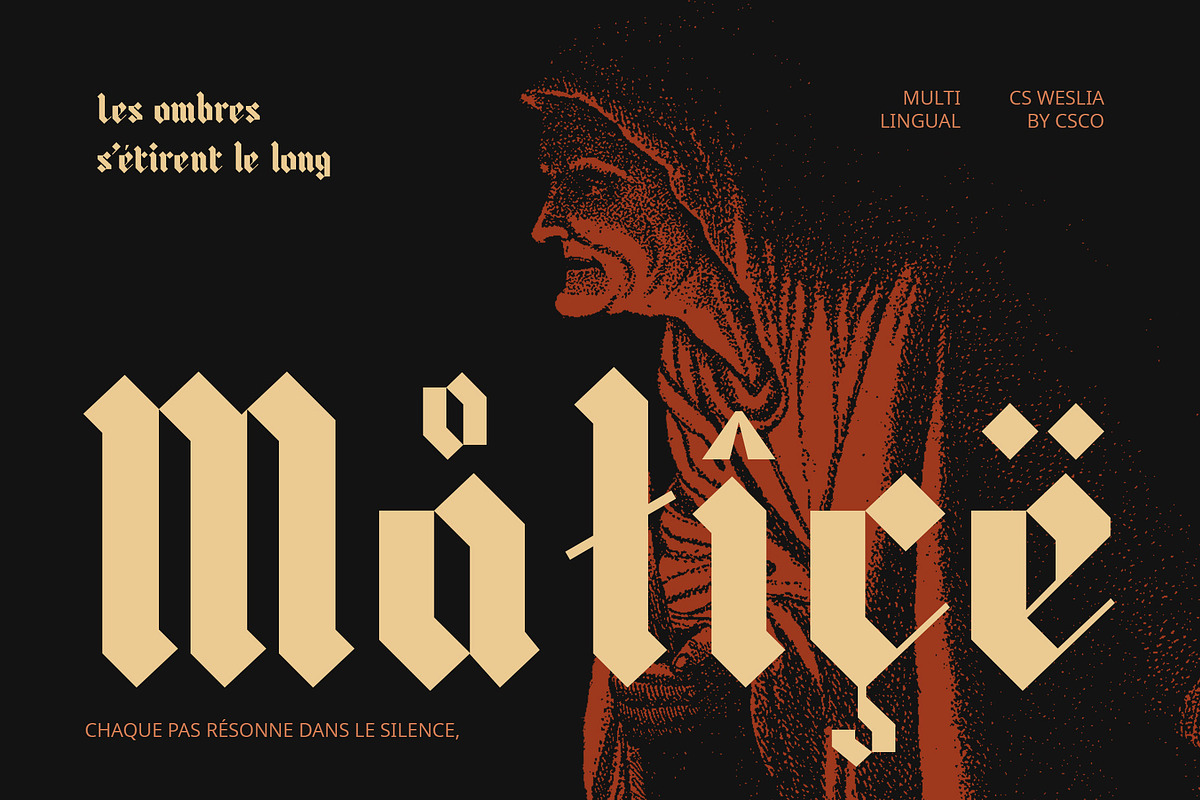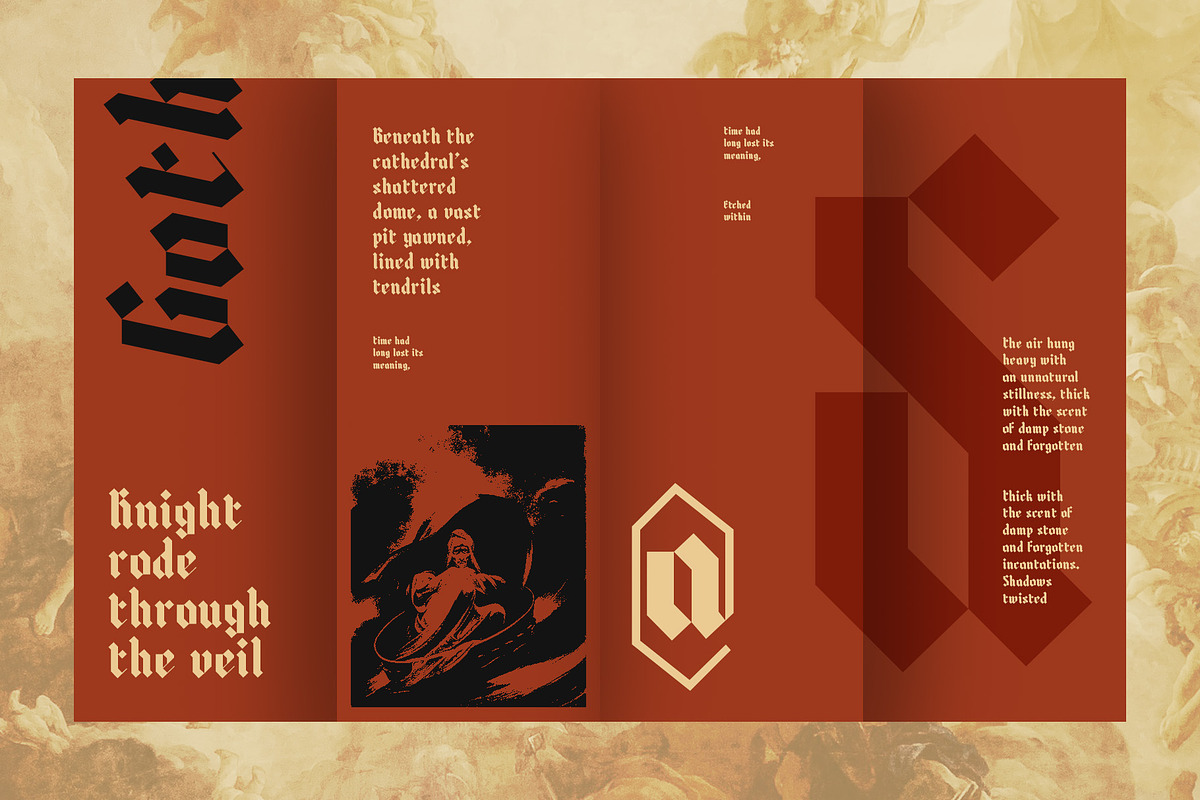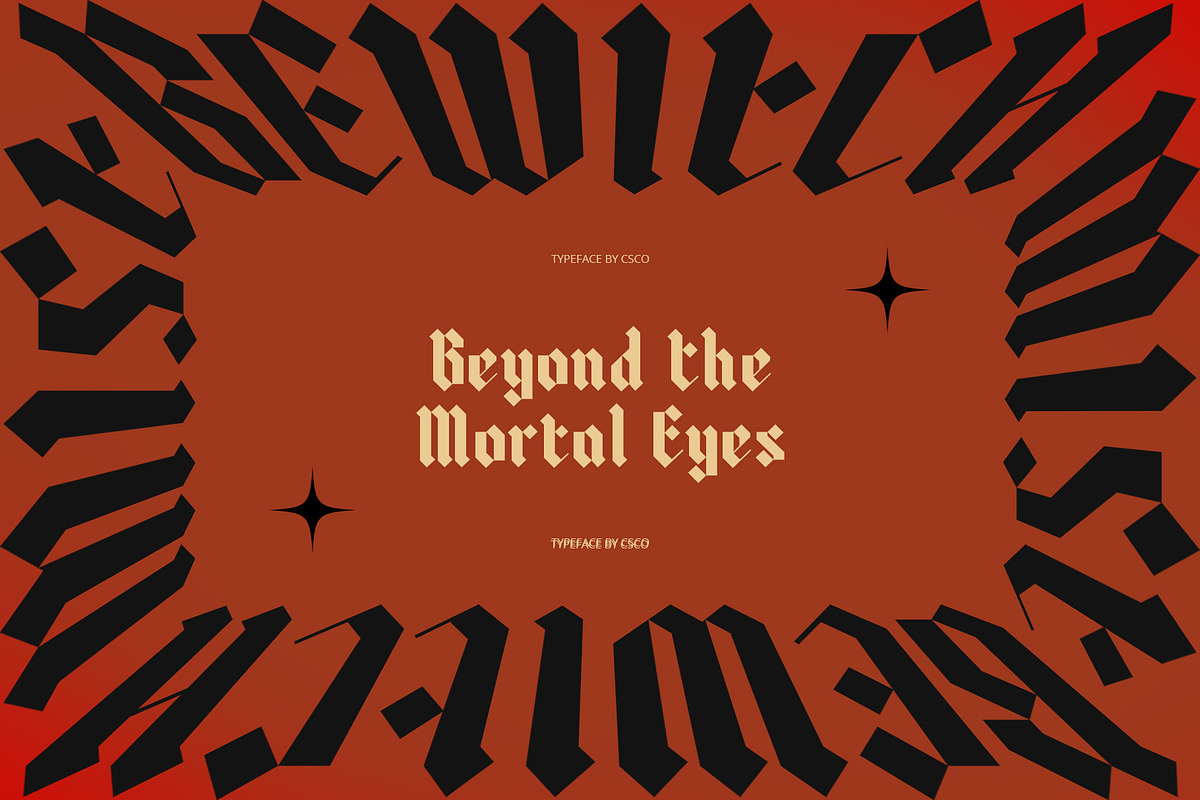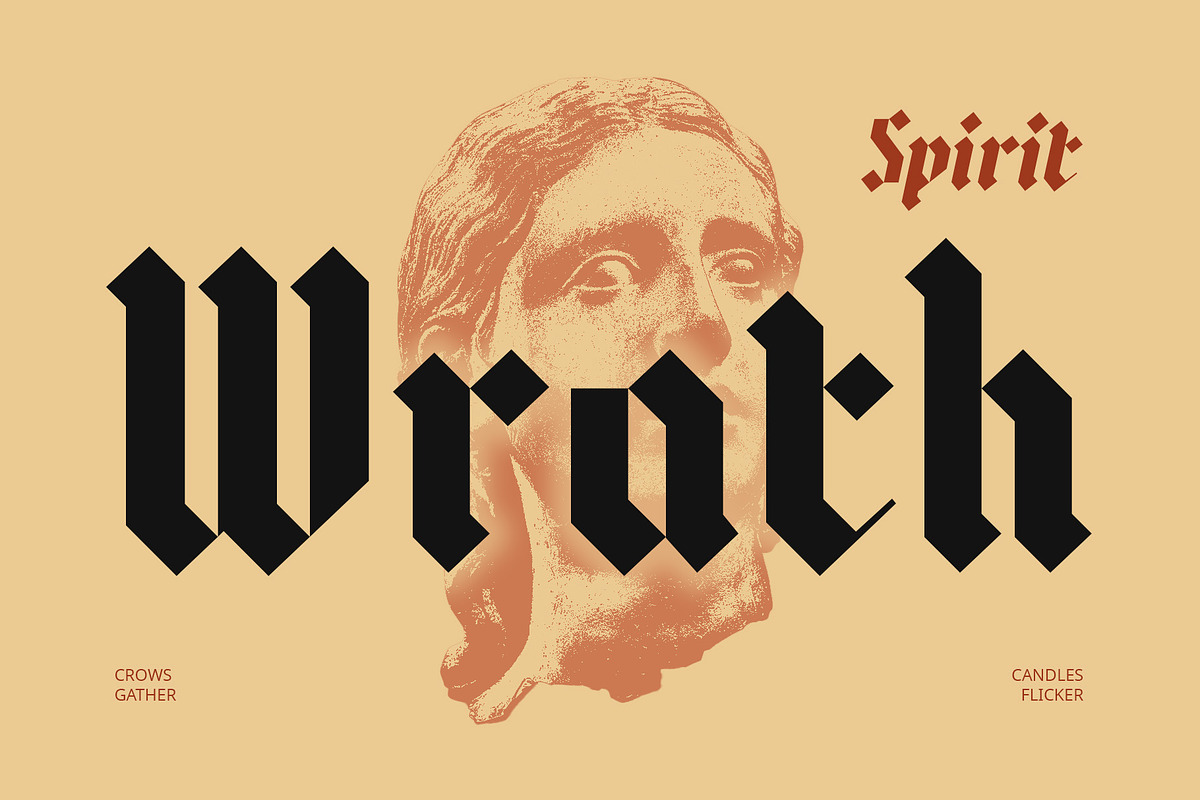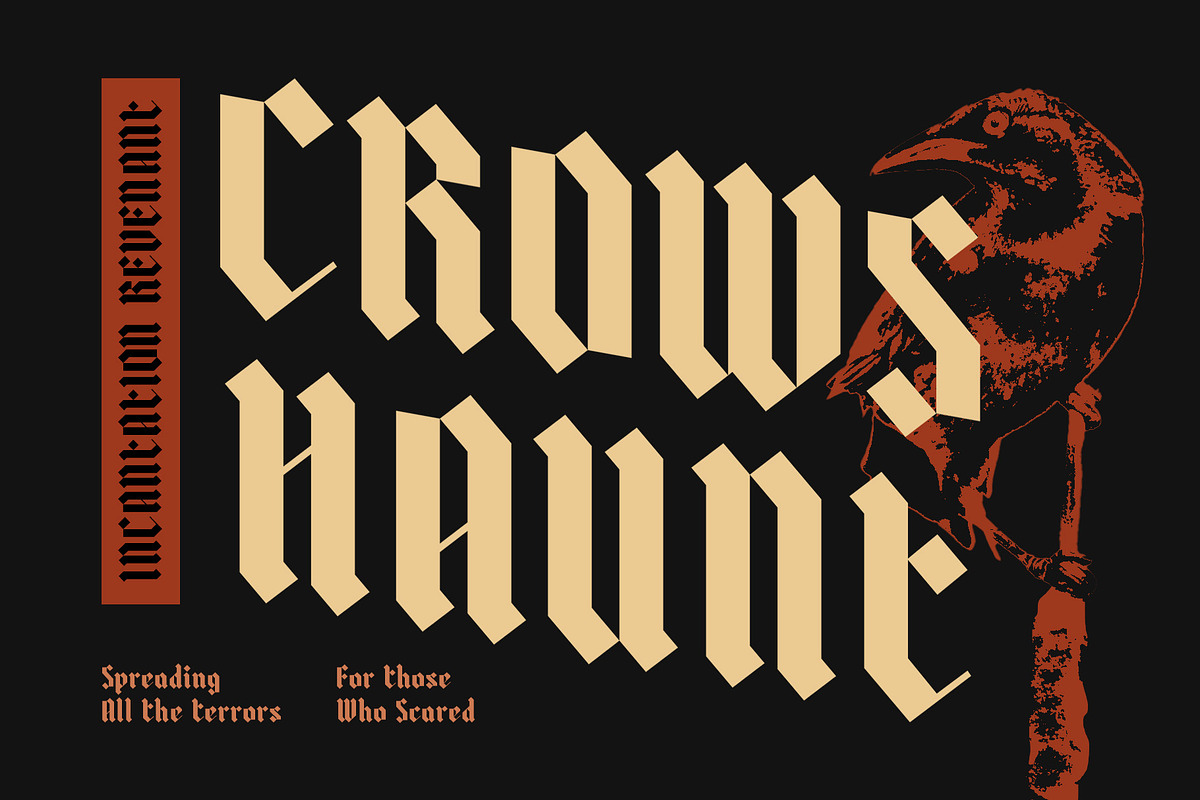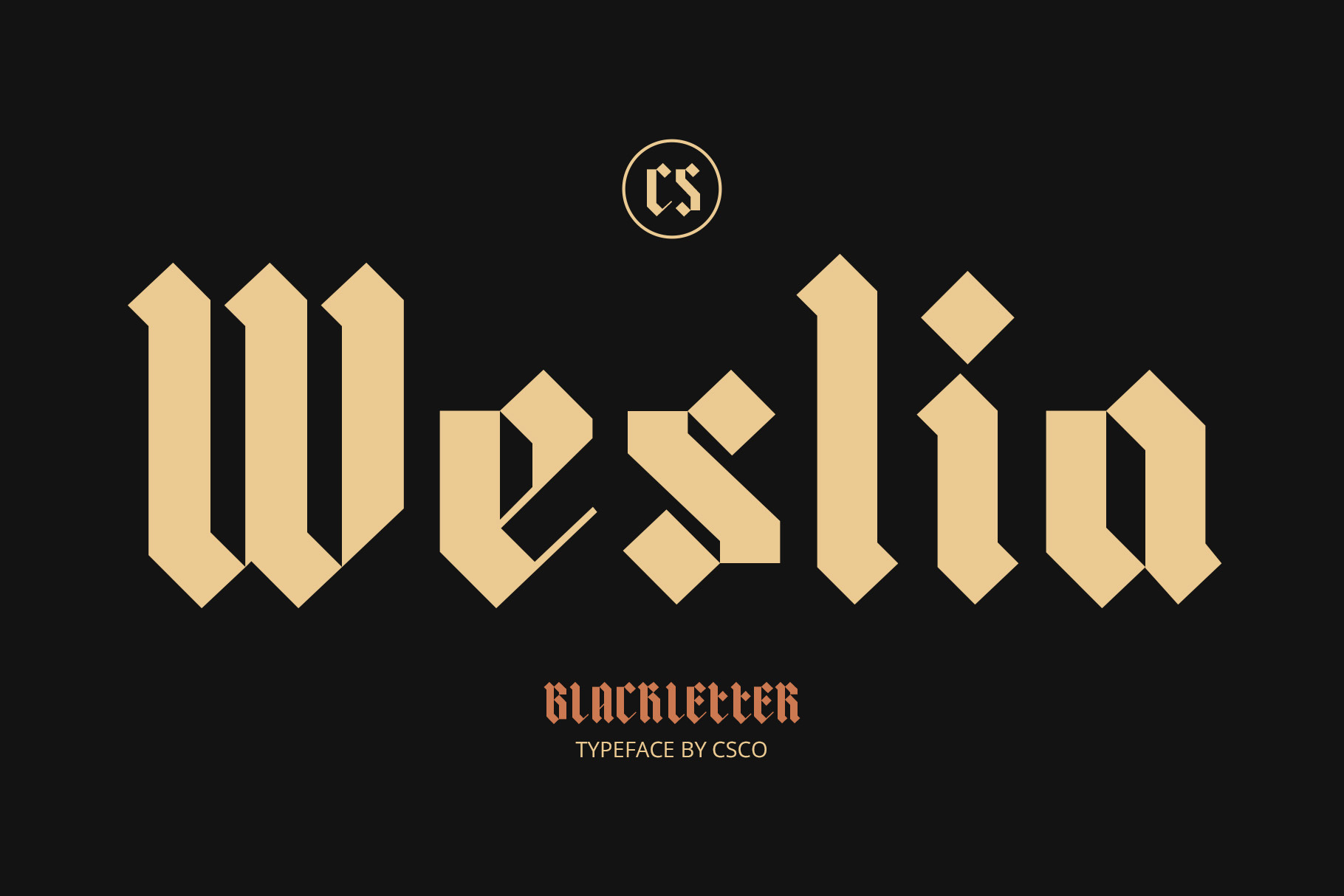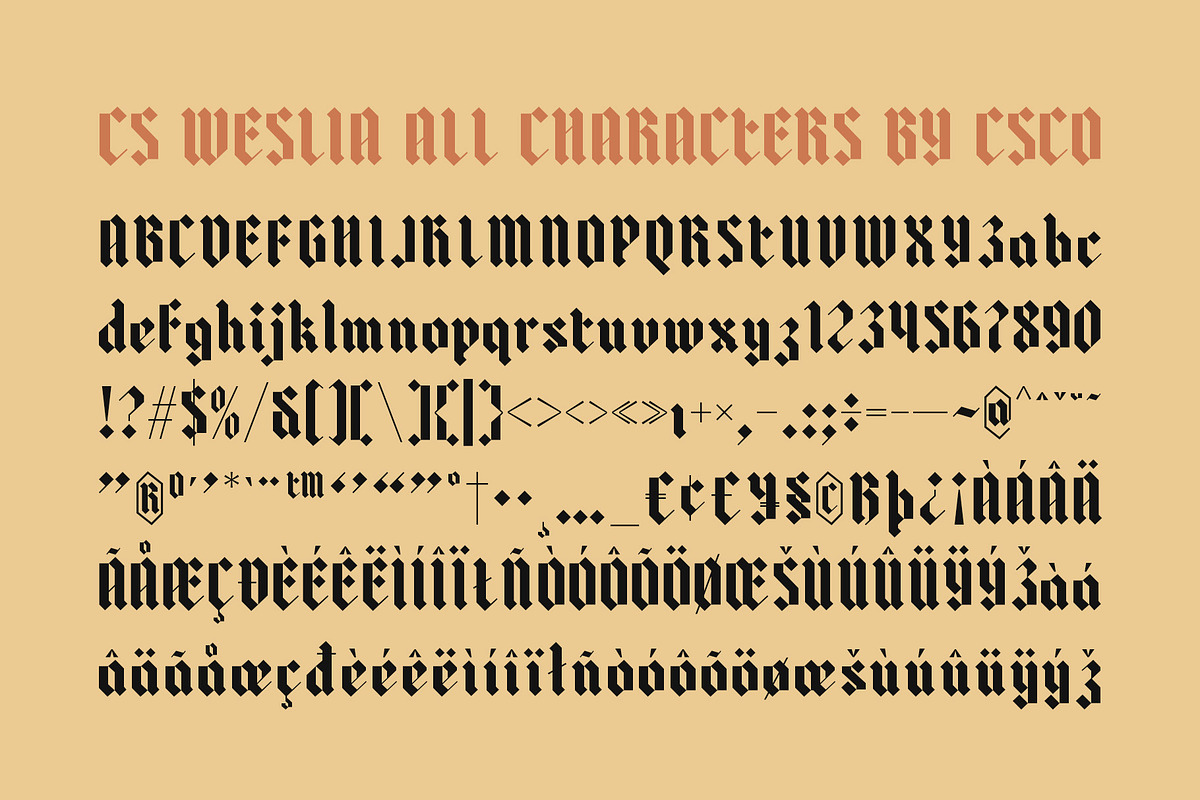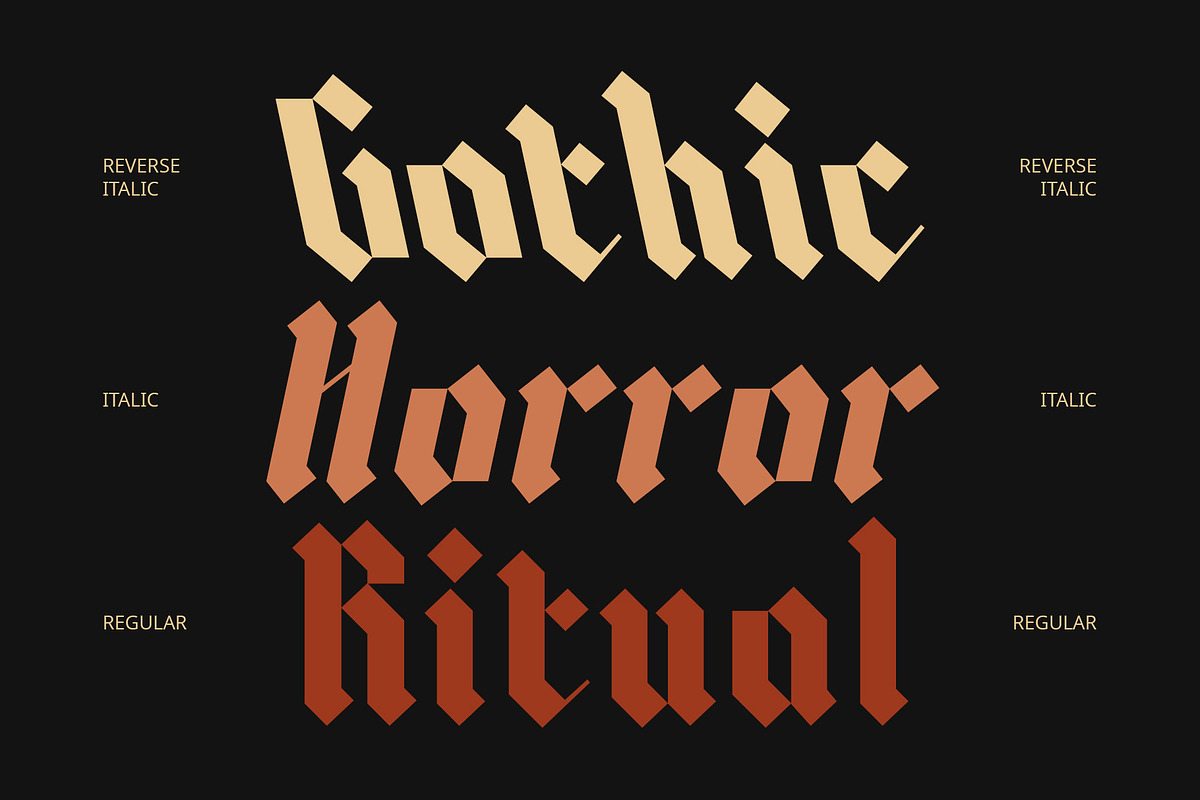
CS Weslia – Gothic Font
CS Weslia – Gothic Font: Modern Gothic Elegance Meets Timeless Drama
Gothic Display Font with Contemporary Elements CS Weslia is a striking display font that masterfully blends the bold, sharp characteristics of traditional gothic styles with sleek, modern touches. Featuring tall letterforms with dramatic flourishes, this font retains the heritage of gothic typography while introducing clean proportions and minimalist structures for a fresh, contemporary look.
Sophisticated and Mysterious Character With its intricate and imposing design, CS Weslia creates a captivating atmosphere. The sharp edges and vertical lines evoke a sense of mystery and elegance, while the modern elements keep it grounded and versatile. This gothic beauty is perfect for projects that want to stand out with a striking, yet refined appearance.
Ideal for Bold and Unique Designs Whether you’re creating dark, atmospheric posters, album covers with a dramatic edge, or visual identities that need to convey strength and individuality, CS Weslia is the perfect choice. Its bold yet graceful style is well-suited for anything from gothic music branding to fashion editorials, event invitations, and beyond.
Timeless Appeal for the Modern Era CS Weslia offers an extraordinary blend of traditional gothic aesthetics with clean, minimal design elements, providing versatility for a range of creative applications. It’s an ideal font for anyone looking to make a statement with their typography—bringing a sense of mystery, strength, and elegance to any project.
- CS Weslia Regular
- CS Weslia Italic
- CS Weslia Reverse Italic